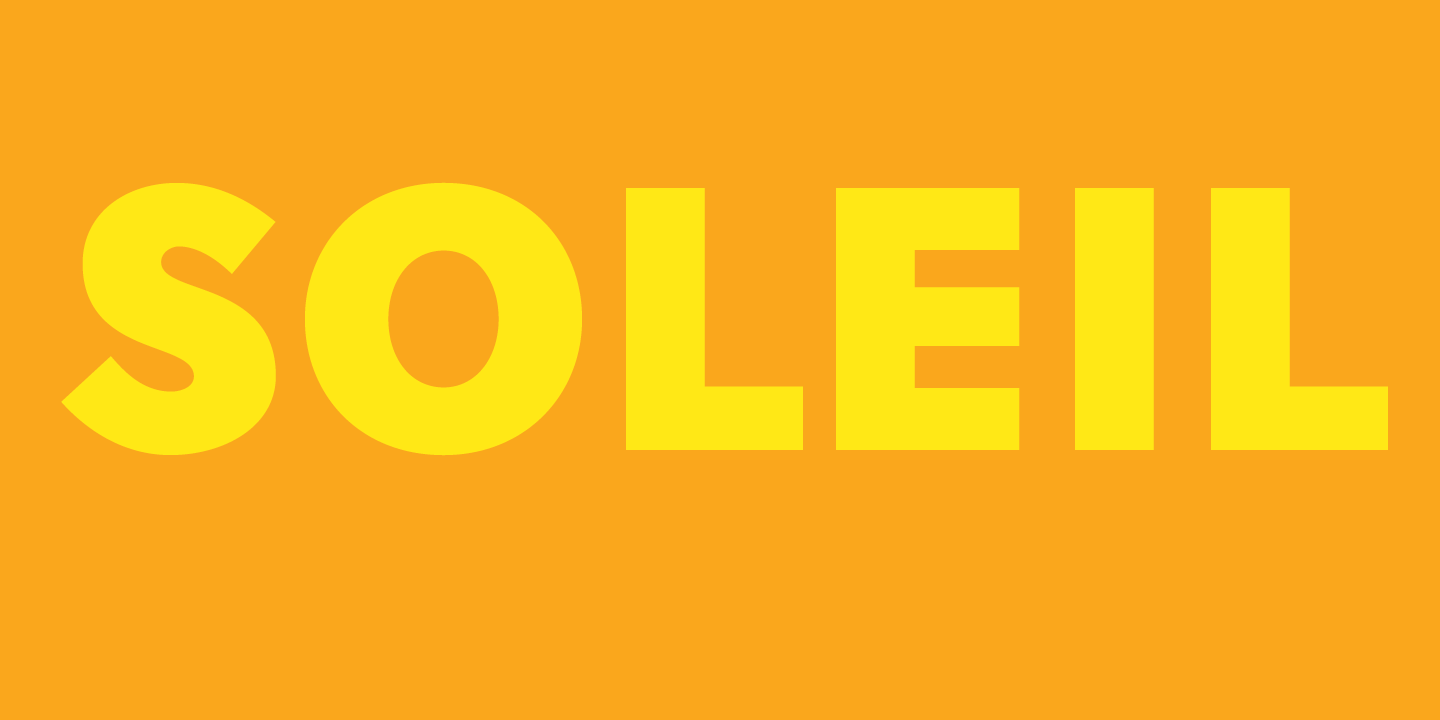
The Soleil Font is perfect for sunny lifestyle branding, Mediterranean resort marketing, summer festival graphics, outdoor recreation campaigns, solar energy company logos, tropical vacation promotions, sunny cafe signage, and bright wellness center materials. This radiant typeface excels in projects for travel agencies, outdoor brands, wellness companies, renewable energy firms, and businesses seeking to capture the warmth, energy, and optimistic spirit of sunshine and bright living.
What makes the Soleil Font exciting is its brilliant embodiment of solar warmth and luminous positivity with radiant elegance and life-giving energy. The font features bright, welcoming letterforms with warm proportions and sunny details that instantly evoke feelings of happiness, vitality, and golden sunshine. Its radiant character and optimistic spirit make it perfect for brands wanting to convey warmth, energy, and positive transformation. The font's solar-inspired beauty and luminous charm create immediate connections with audiences seeking brightness, wellness, and joyful experiences.
The Soleil Font family includes sun-inspired variations: Light Ray, Regular Shine, Bold Bright, Golden, Radiant, and Ultra Sunny versions. Each style maintains the font's solar character while offering different levels of brightness intensity and warm expression for diverse sunshine-themed applications. The family also features sun symbols, ray ornaments, solar decorations, and bright elements that enhance positive, energy-focused design projects.
Whether you're developing sunny brand identities, creating bright marketing materials, or designing optimistic promotional campaigns, the Soleil Font Free Download provides the ultimate solution for projects requiring warm, radiant typography. This exceptional typeface brings genuine solar energy to design work, making it an essential resource for designers celebrating sunshine, positivity, wellness, and the life-affirming power of bright, golden light and solar warmth.